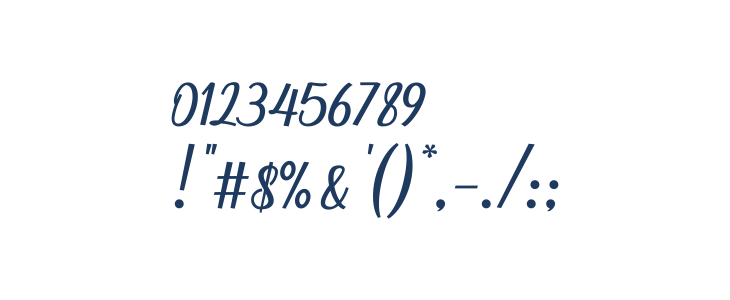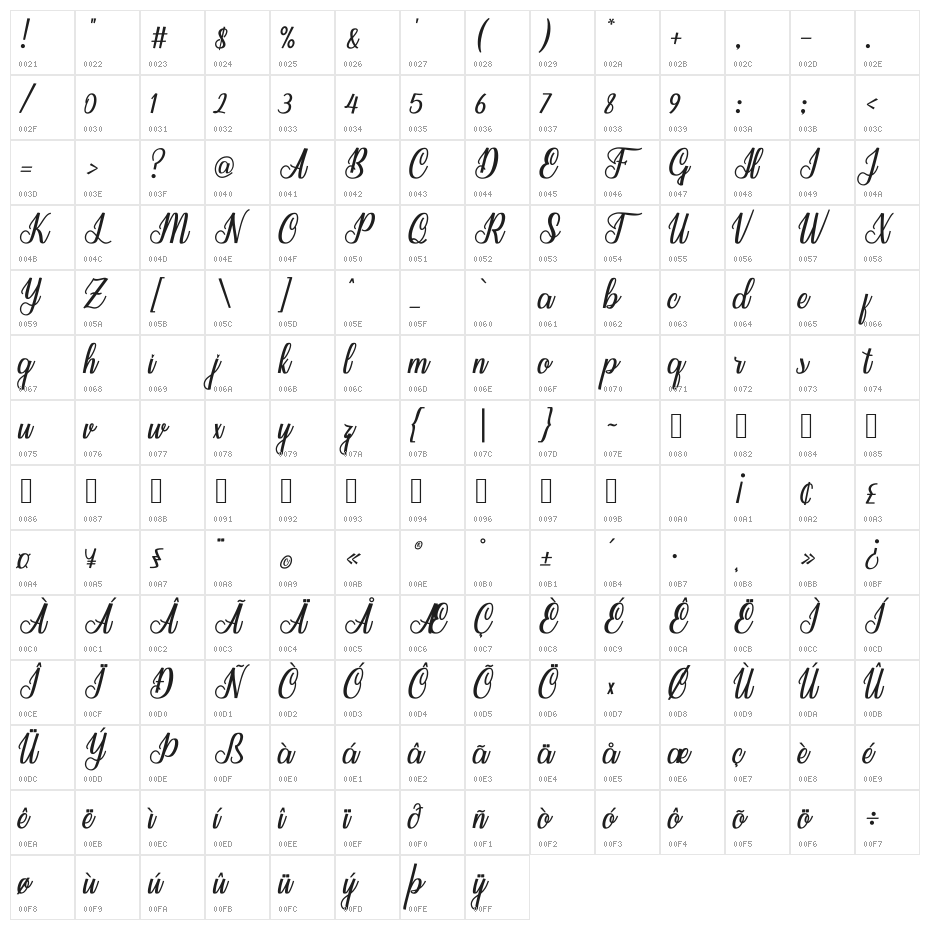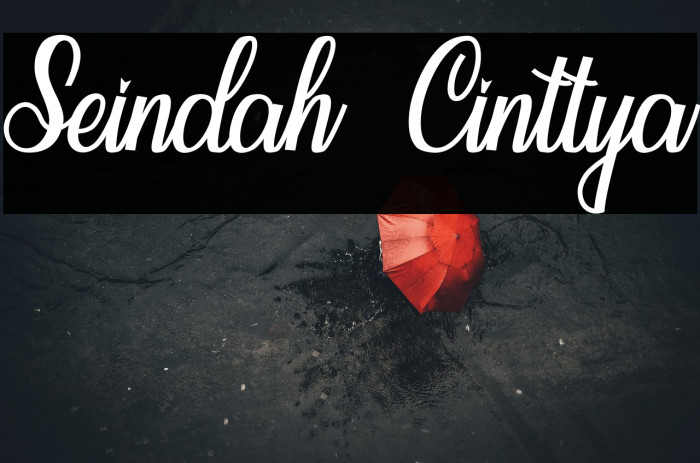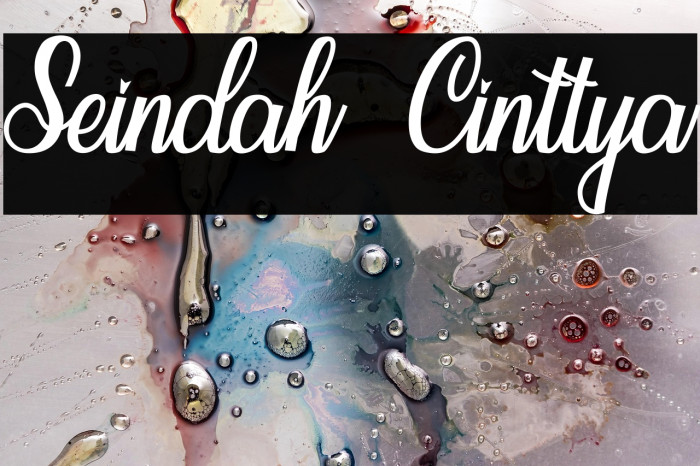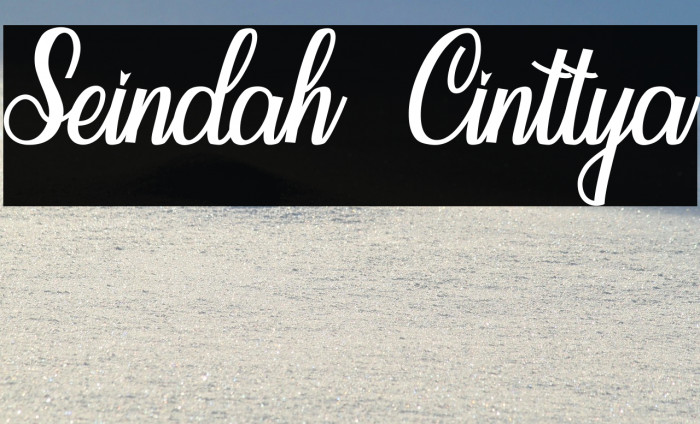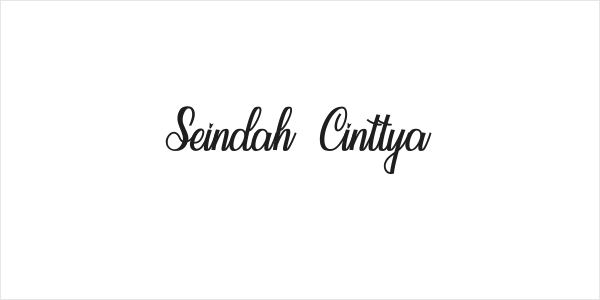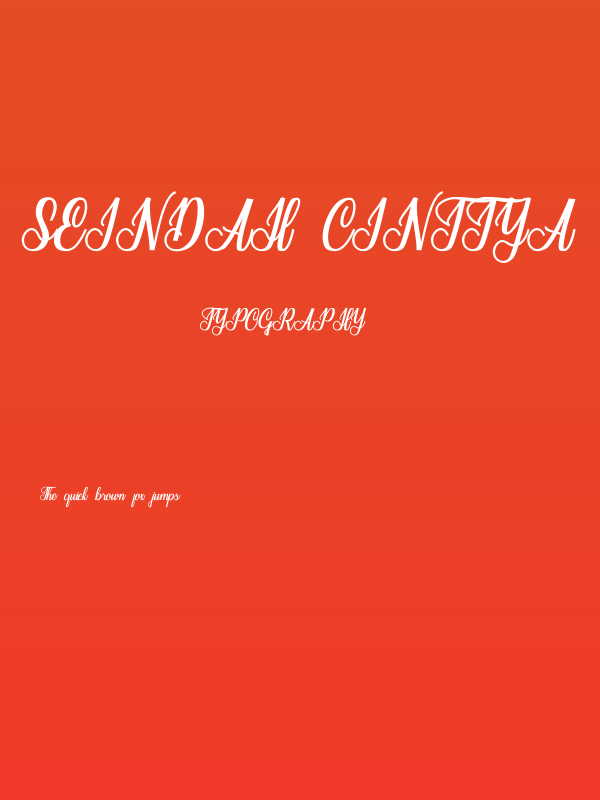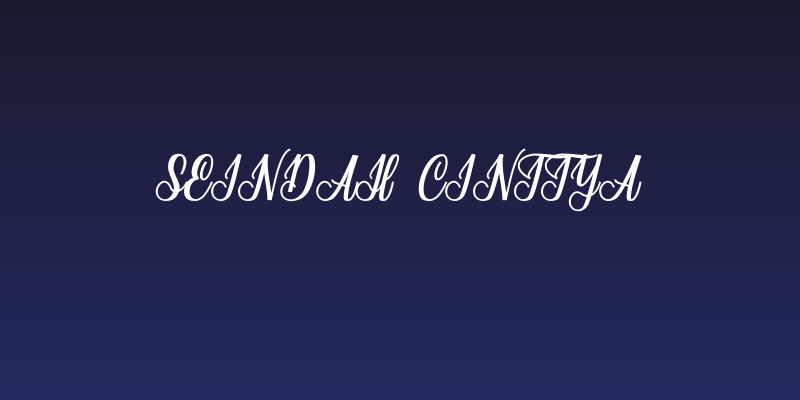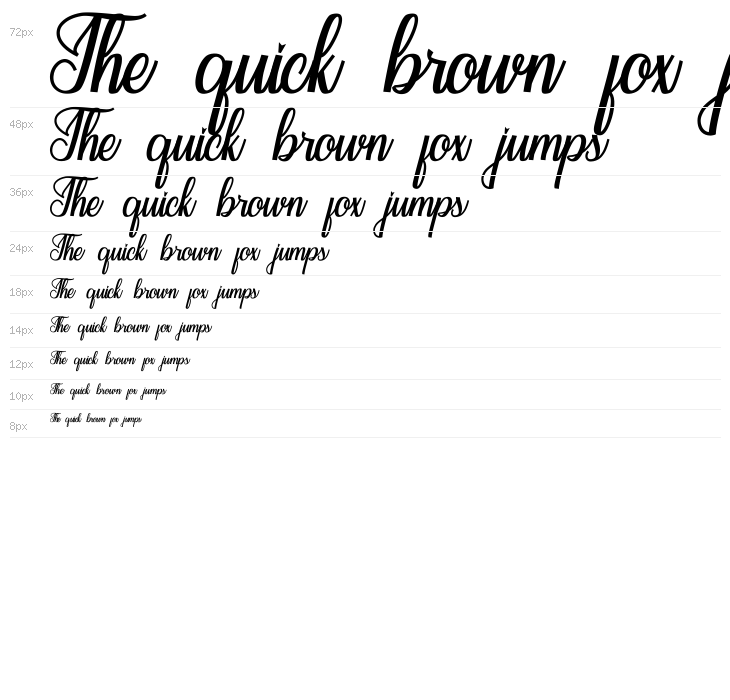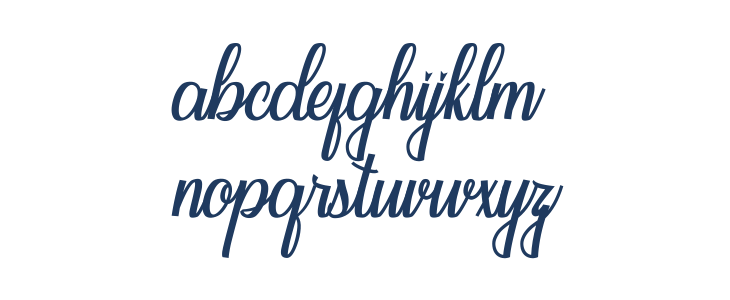
Seindah Cinttya Font
Seindah Cinttya Description
This font features a flowing, elegant script style with a calligraphic influence. The uppercase letters are ornate and decorative, with sweeping curves and flourishes that add a sense of sophistication and grace. The lowercase letters maintain a consistent style, with smooth, connected strokes that enhance readability while retaining an artistic flair. The numerals are styled to match the overall aesthetic, offering a cohesive look across all characters. Special characters are designed with the same attention to detail, ensuring they blend seamlessly with the rest of the font. This font is ideal for projects that require a touch of elegance and formality, such as wedding invitations, luxury branding, or high-end product packaging.
| Overall Style | Elegant, Decorative |
| Proposed Projects | Wedding invitations, luxury branding, high-end product packaging, formal event programs. |